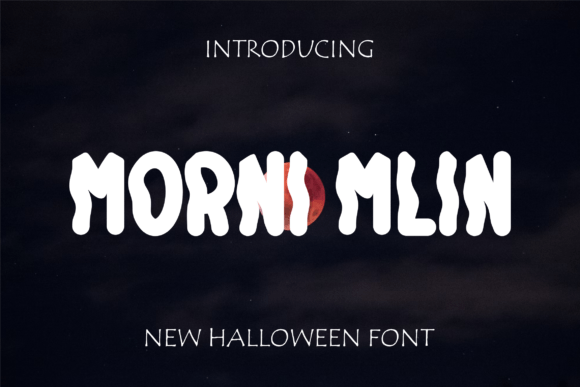
Introducing Mornimlin Font, a captivating display font that commands attention with its distinctive modern flair.
Indulge in the bold lines and sleek curves of Mornimlin. Its unique character invites you to express your individuality in every project you create.
Whether crafting enchanting signatures, sophisticated stationery, or eye-catching logos, Mornimlin's versatility knows no bounds. Its presence elevates every design, adding a touch of modernity that resonates with style-conscious hearts.
Adorn your wedding invitations with an air of elegance, let your typography quotes soar with inspiration, and make your magazine or book covers unforgettable. Mornimlin is the perfect companion for transforming your creative visions into extraordinary realities.
Website headers and clothing designs come alive with Mornimlin's charismatic style. Its versatility extends to branding and packaging, leaving an unforgettable impression on your audience.
With Mornimlin Font, you'll discover a world of creative possibilities. Its captivating nature will ignite your imagination and empower you to create designs that stand out from the crowd.